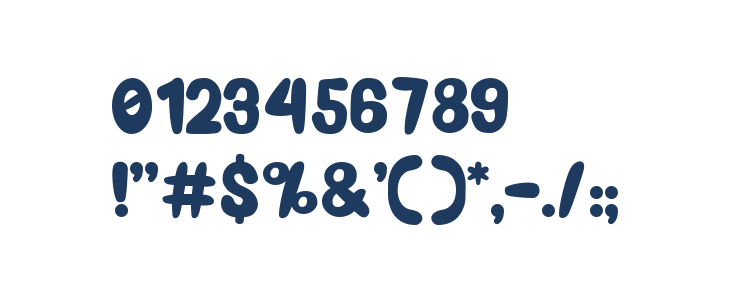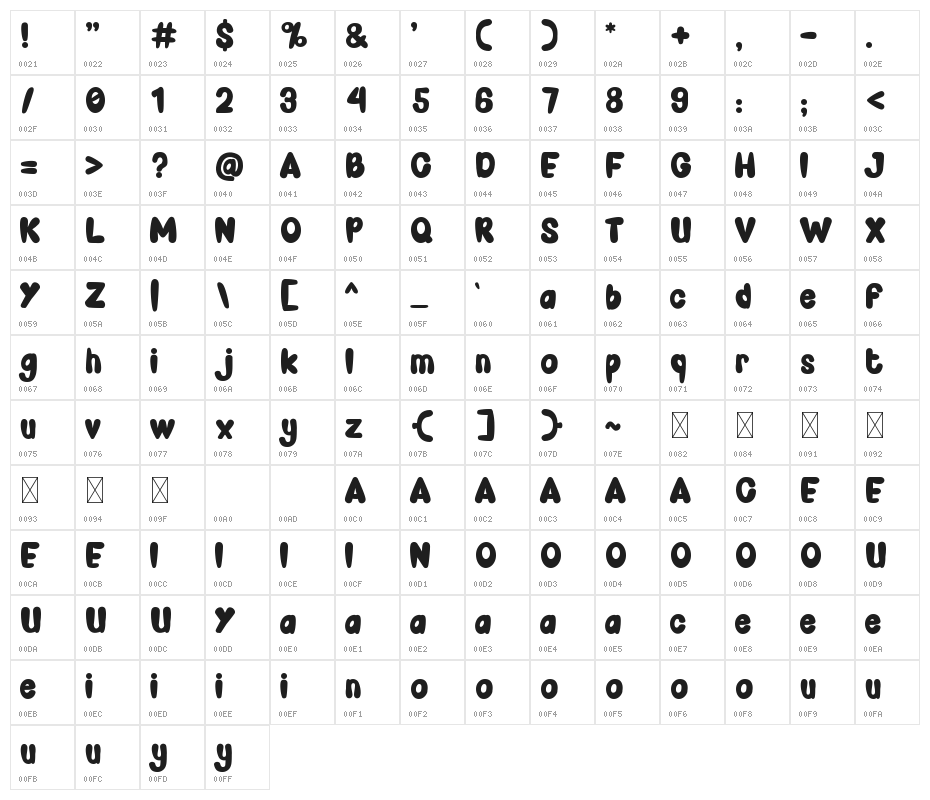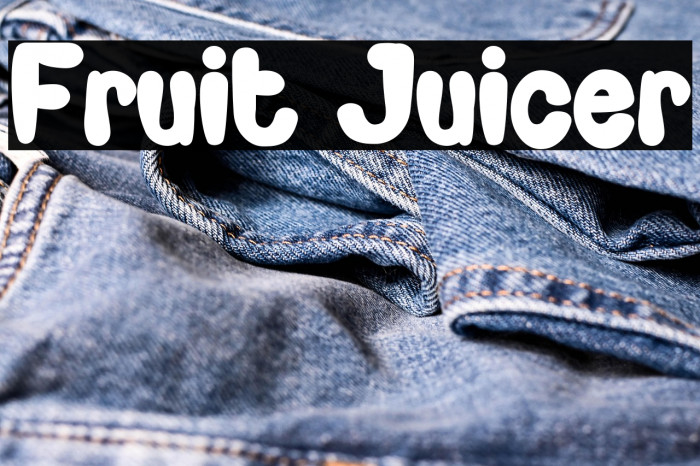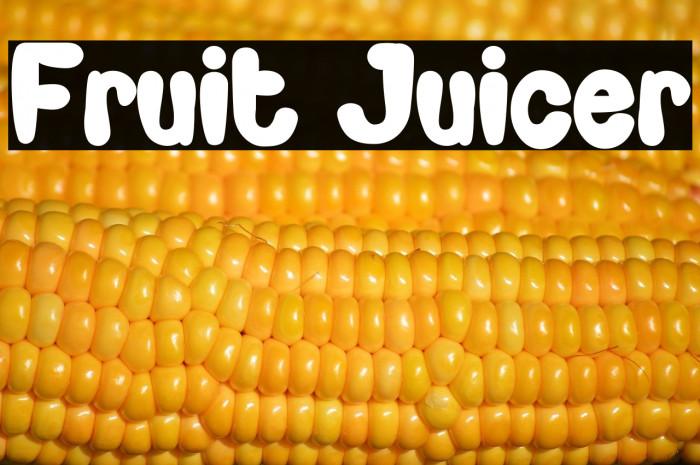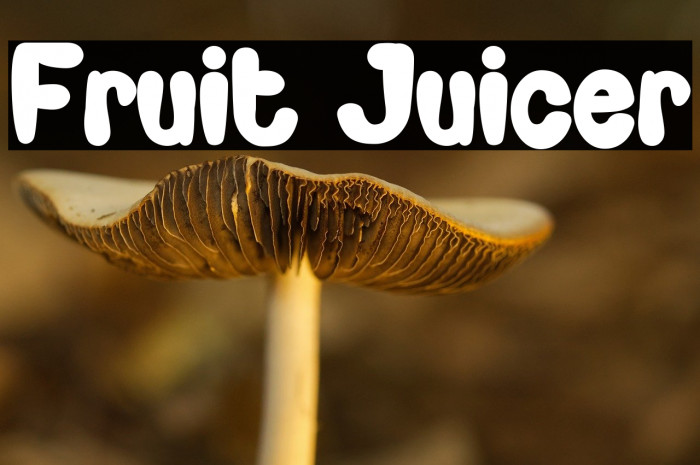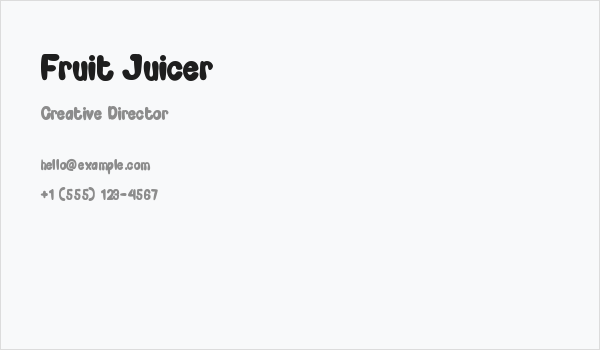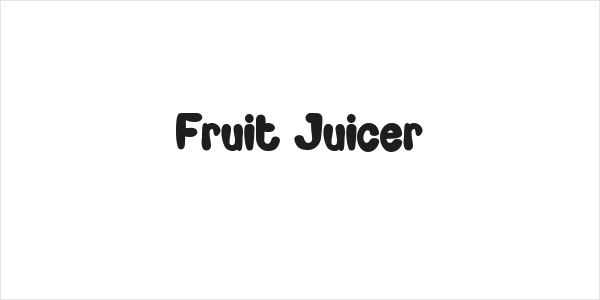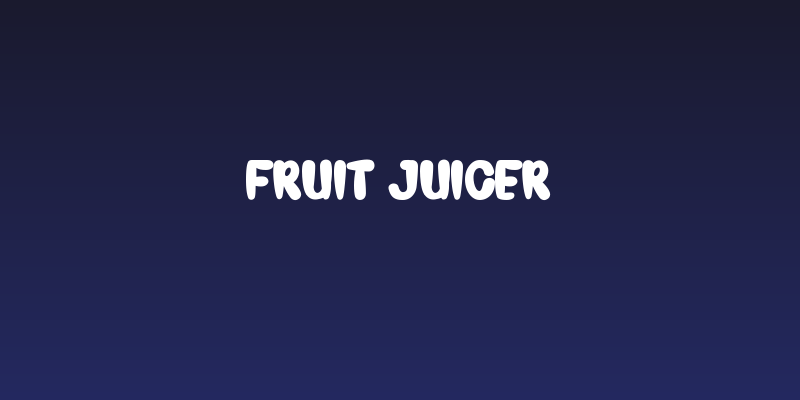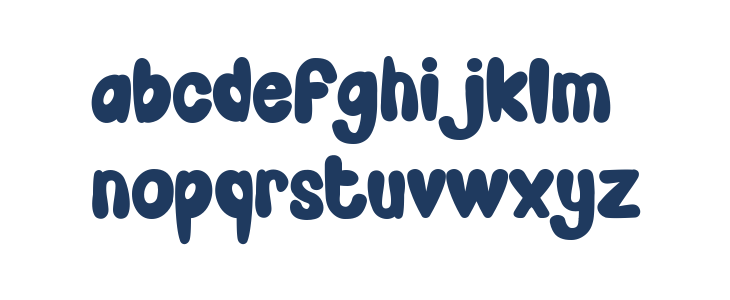
Fruit Juicer Font
Fruit Juicer Description
This playful and bold font features rounded, bubbly characters that exude a sense of fun and whimsy. The letters are thick and substantial, with a consistent stroke width that gives them a cohesive appearance. The rounded edges and soft curves contribute to a friendly and approachable aesthetic, making it ideal for designs that aim to convey warmth and cheerfulness. The numerals and special characters maintain the same playful style, ensuring uniformity across all text elements. This font is particularly suited for projects that require a lively and engaging visual impact.
| Proposed Projects | Ideal for children's books, playful branding, party invitations, and casual posters. |